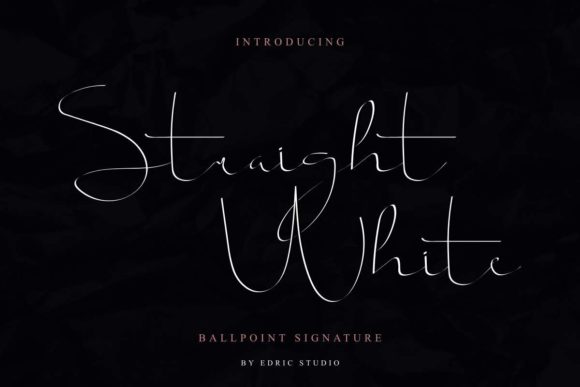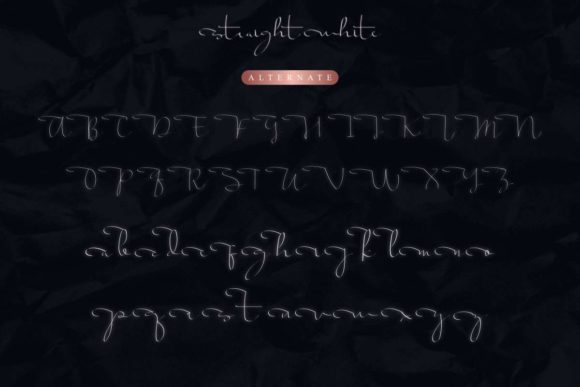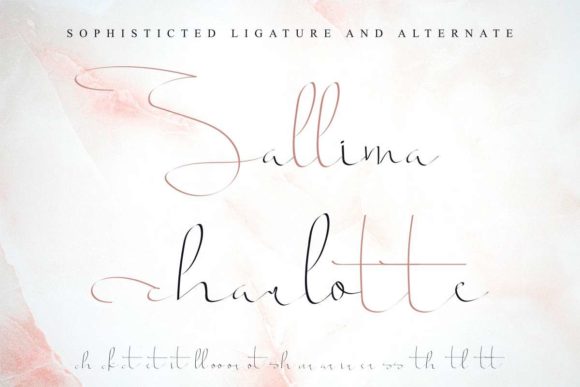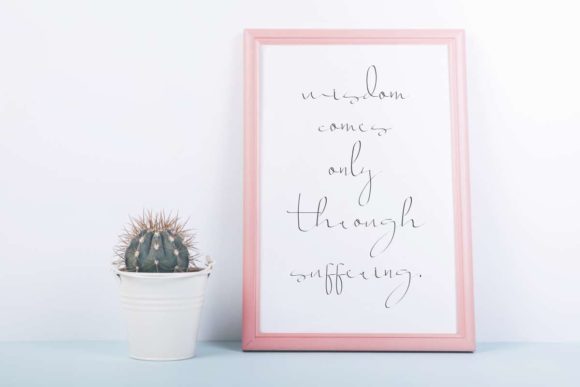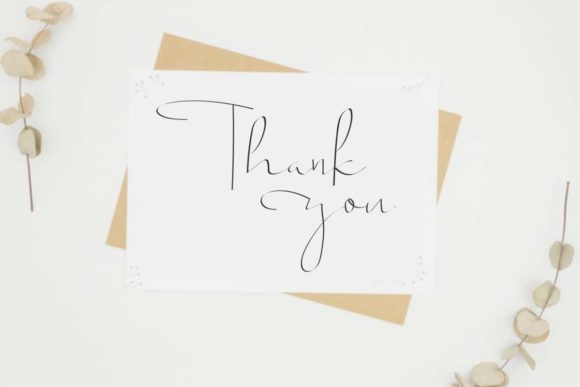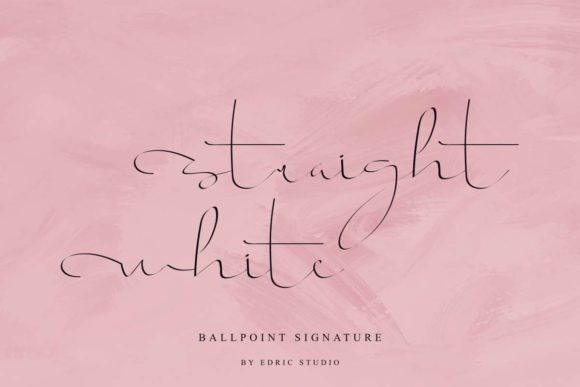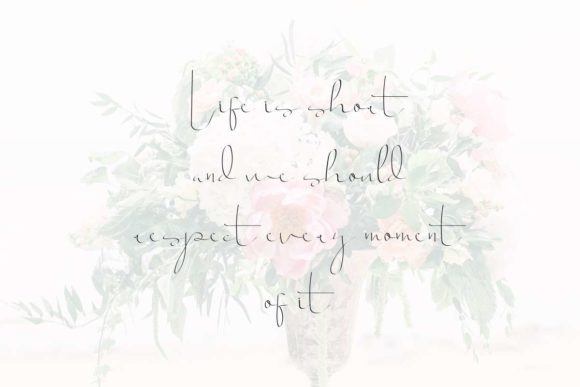
Straight White Font
About Straight White Font
Straight White is a magical script font carefully created with a touch of elegance. This is a beautiful combination of timeless elegance and authentic calligraphy. It features an incredibly classic style, while still keeping a friendly feel. Straight White is the perfect font for making original and outstanding designs.